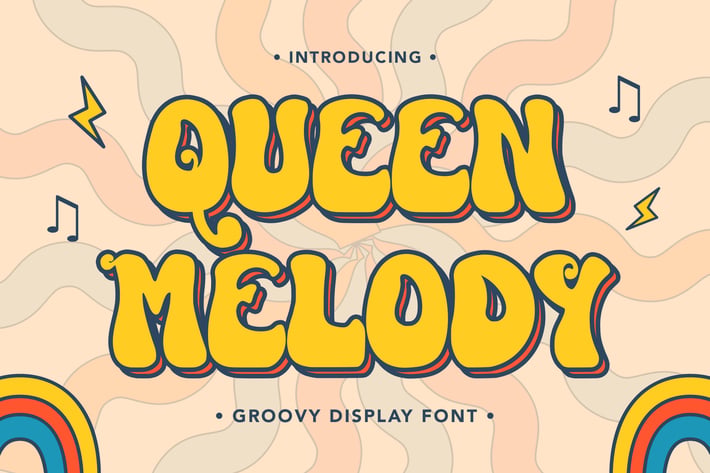
QueenMelody - Groovy Display Font
QueenMelody - Groovy Display Font contains a lowercase, uppercase, symbol, and also supports multi-language. There’s a lot of ligature in this font. QueenMelody - Groovy Display Font also comes with ligatures, stylistic alternates and many more.
this font suitable for fashion, branding, catalog and other design that you want.